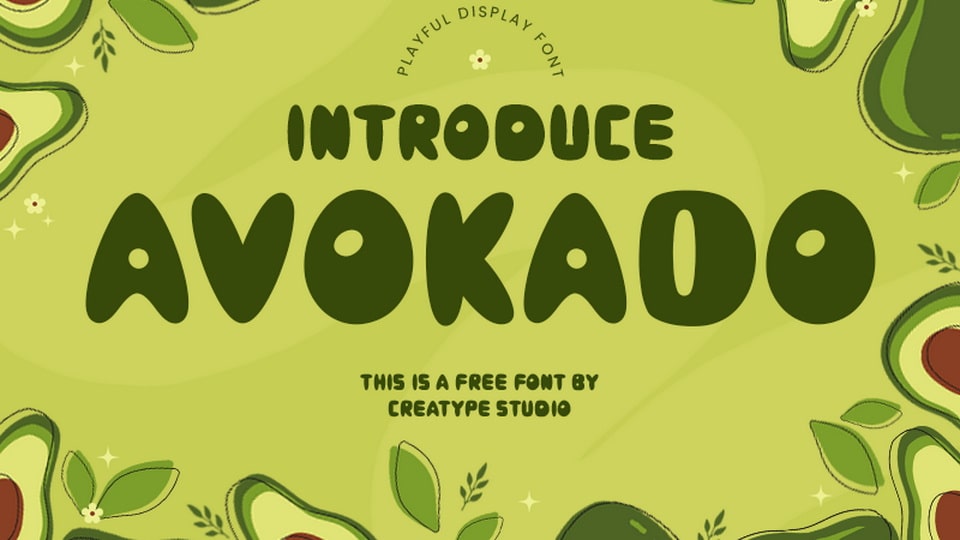
Download Avocado font, a bold and irresistibly cute hand-drawn typeface that features rounded cartoon-style letterforms, perfect for playful designs that need a touch of whimsy and charm.